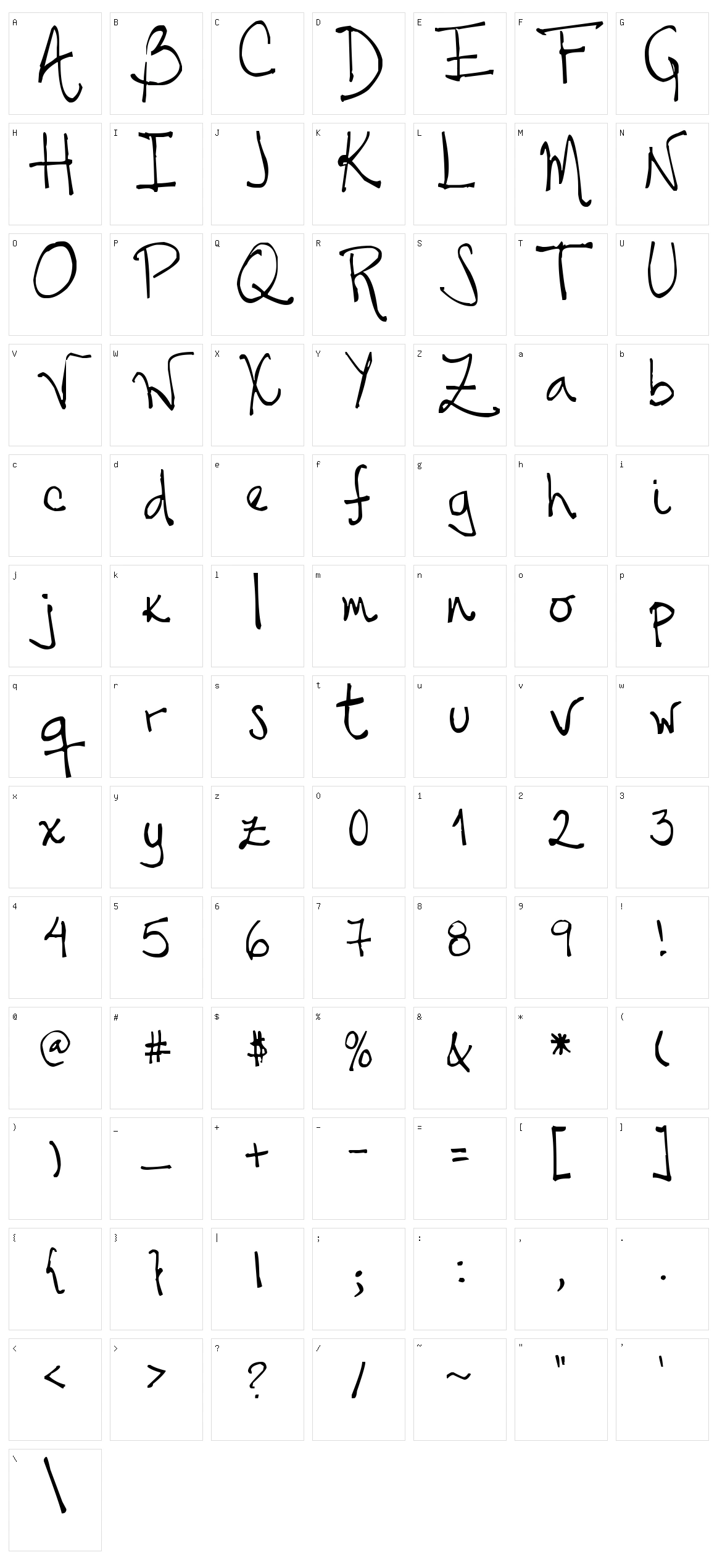
The free font Tehzeta is carefully designed by Melissa Thereliz, showcasing a thoughtful balance of creativity and usability and falls under the Script font style. When you download the ZIP file, it contains only 26.9 KB of font files, making it lightweight and quick to download. Please review the license details below to understand permitted usage and distribution rights. If license information is not available, we recommend using this font for personal projects only or contacting the author directly for commercial usage permissions.
Tehzeta**